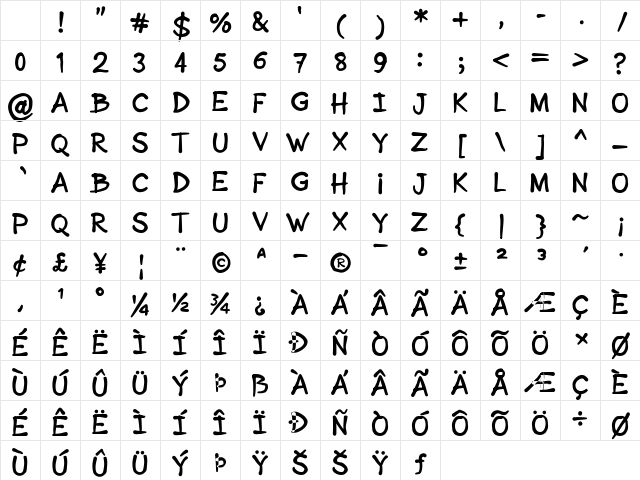
Complete Sonic Comics Regular glyph index. Displaying only characters natively supported by Sonic Comics Regular font.
Sonic Comics has an approachable, lighthearted character - its loose, expressive forms are well-suited to children's content, casual branding, and fun-first design.
Font Pairing: Pairs well with a rounded or humanist sans for body copy, maintaining the friendly tone without relying on Sonic Comics to carry extended reading.
Pro Tip: Use Sonic Comics at larger display sizes where its expressive character can land. Pair with a clean, simple sans for body copy to maintain readability.